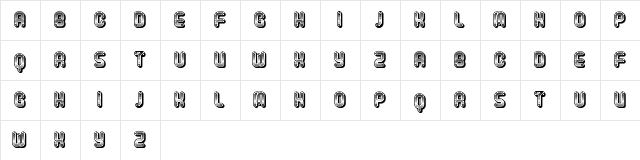
Shape Elegant Regular
Design Context for Shape Elegant Typeface
Shape Elegant is a composed and adaptable typeface that performs quietly and consistently across a wide range of design contexts.